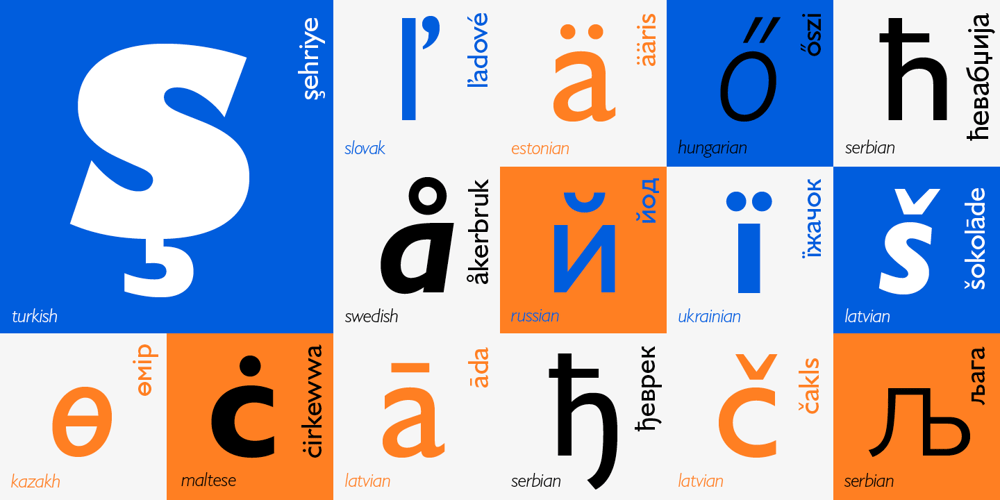
Humanist 521 Font Family was designed by Tagir Safayev, Vladimir Yefimov, Isabella Chaeva and published by ParaType. Humanist 521 contains 8 styles and family package options. Humanist 521 is a Bitstream digitized version of Gill Sans typeface. The font was designed by Eric Gill and released by Monotype circa 1928-1930. Gill’s design is based on the typeface of Edward Johnston, the innovative British letterer and teacher, designed in 1916 for the signage of the London Underground. However, it has more classical proportions close to those of old style serifs, and thus is more suitable for text setting. With distinct roots in handwritten scripts, Gill’s typeface is classified as a humanist sans serif and is very legible and readable in text and display work. Having been released more than 80 years ago, it’s still very popular and in fact is an icon of British typographic style. The Cyrillic version of Ultra Bold weight was designed by Tagir Safaev in 1997. Six text styles and Extra Bold style in Cyrillic were designed later by Vladimir Yefimov and Isabella Chaeva. The Cyrillic version, in addition to the original Bitstream implementation of Humanist 521, has an alternative numeral 1 with the traditional shape and a set of old-style figures. Rereleased by Paratype in 2013.